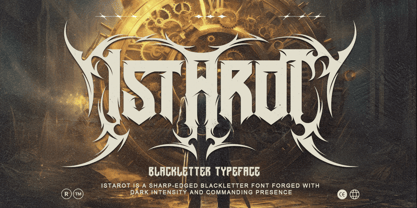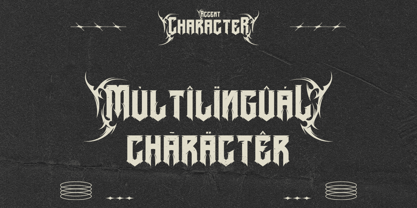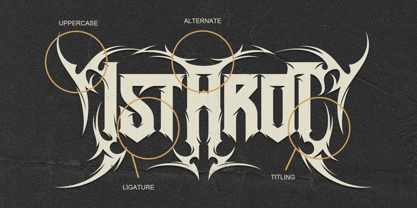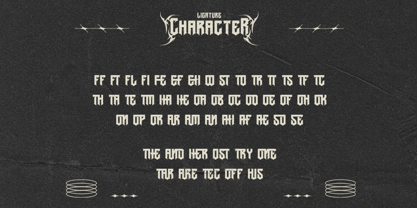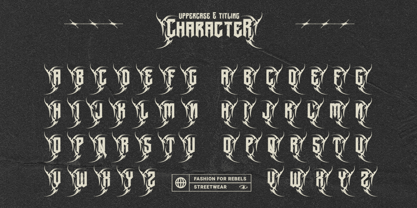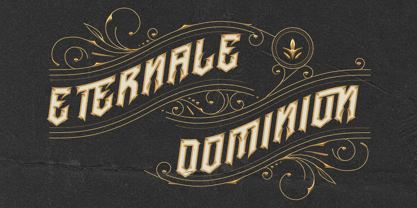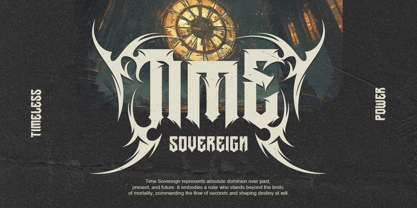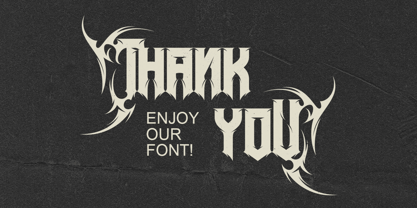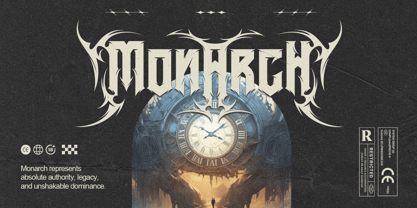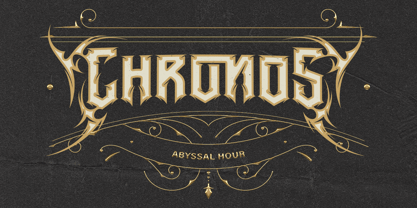
Istarot
The Istarot Font Family was designed by Thomas Aradea and published by Letterara. Istarot contains 2 styles and family package options. More about this family
Istarot is a fierce blackletter typeface forged with dark elegance, razor-sharp details, and a commanding gothic presence. Inspired by medieval architecture, occult symbolism, and the raw energy of extreme metal aesthetics, Istarot delivers a bold visual identity that feels both timeless and aggressive. Its dramatic strokes, sharp ornamental edges, and symmetrical structure make it perfect for album artwork, premium branding, game titles, posters, packaging, cinematic visuals, whiskey labels, merchandise, and luxury gothic-inspired products. Designed to dominate attention while maintaining refined craftsmanship, Istarot transforms every word into a powerful statement of intensity and prestige.